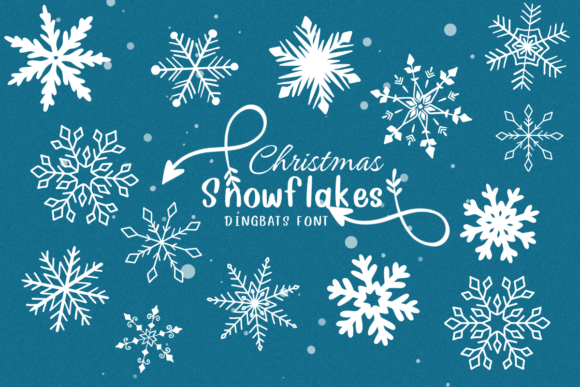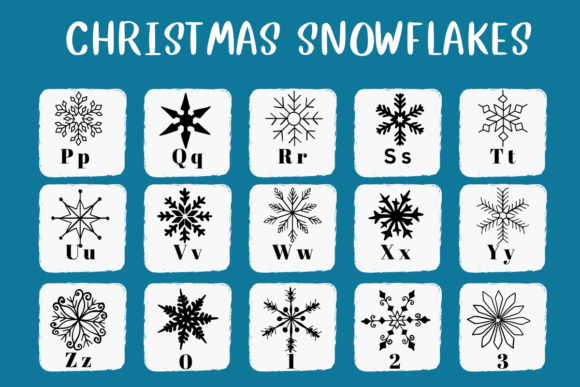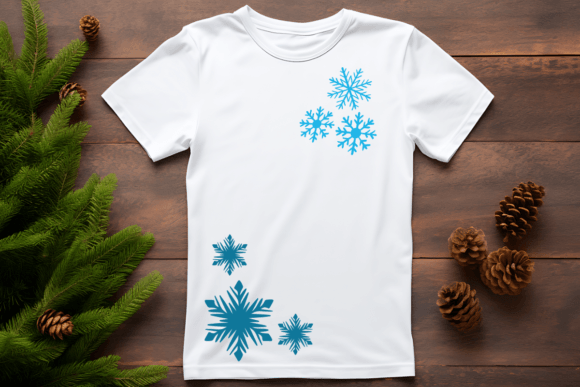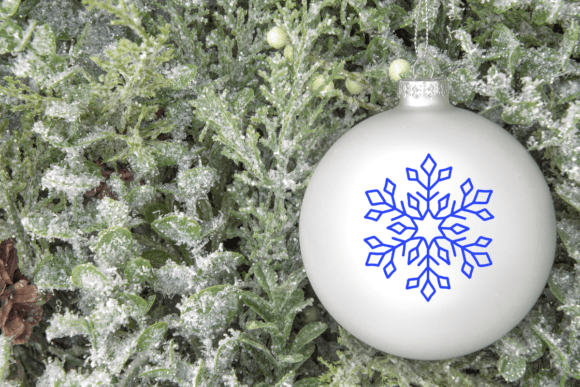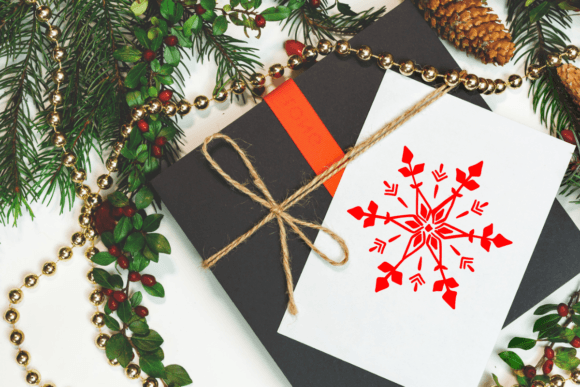
Christmas Snowflakes Font
Christmas Snowflakes is a dingbats font with a winter theme. This font can enhance your creative projects such as wedding invitations, DIY, crafts, decorations, logos, and many other creative ideas.